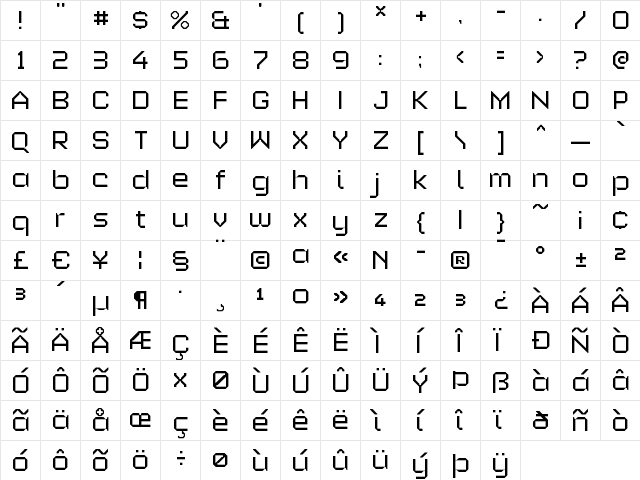
Alloy Light
Design Context for Alloy Typeface
Alloy takes a measured approach to typography — its balanced proportions and neutral character make it a reliable workhorse for both digital and print work. Its slender proportions lend an understated elegance to any composition.
Pro Tip: Use Alloy in both headline and body roles to test its range before committing to a single application.